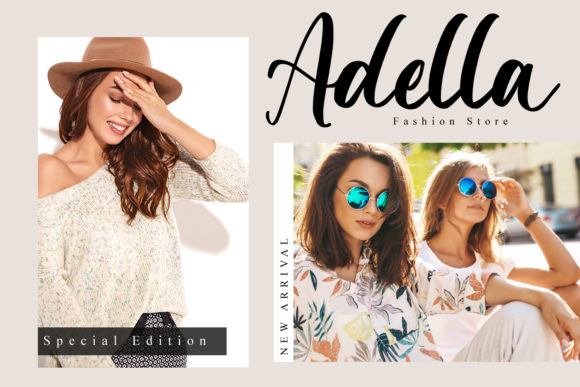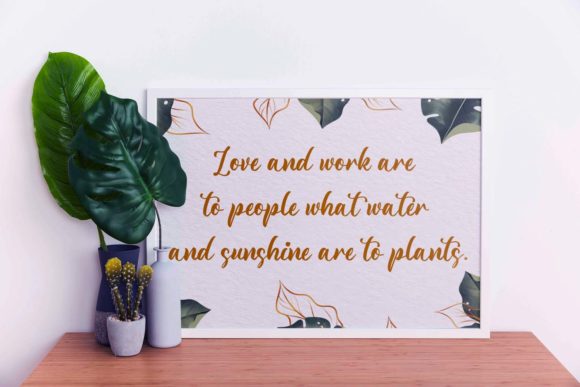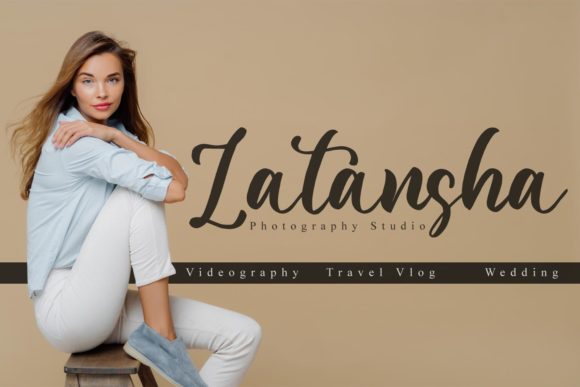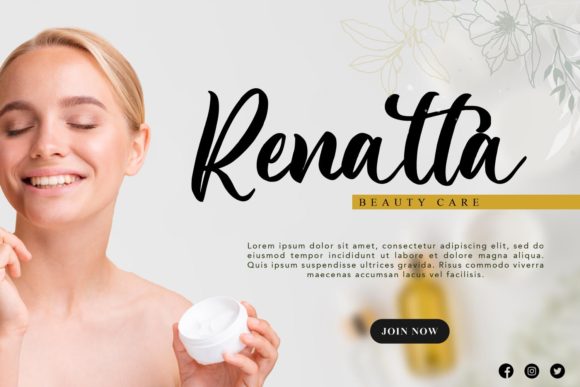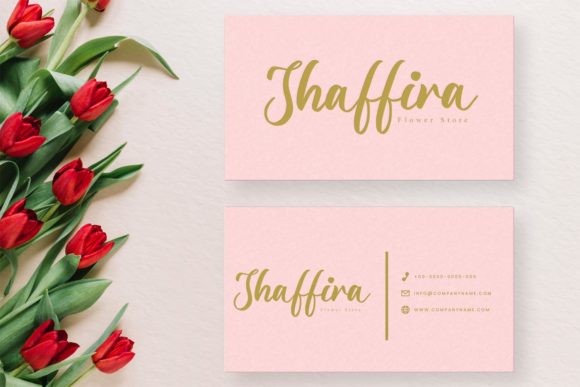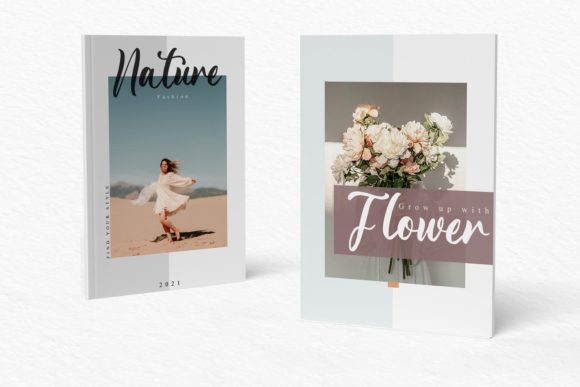
Introduction to Heylena Font
Have you ever stared at a blank canvas, trying to conjure up the perfect design for a creative project? The blank page can be intimidating, but with the right tools, it can also be a thrilling challenge. For designers, the quest for the perfect font can be a long and arduous one, but what if I told you that there’s a font that can elevate your designs to the next level? Enter the elegant and sophisticated Heylena Font.
This stunning brushed script font is a game-changer for any design project, from logos and branding to invitations and wedding designs. With its classy, modern look and PUA encoding, you’ll have access to all the glyphs and swashes you need to create high-quality designs. And the best part? It’s available for free download, making it a valuable resource for designers of all levels.
Key Features of Heylena Font
- High-quality, free download font ideal for creative projects
- Transparent background, making it perfect for graphic design and digital art
- Includes a range of unique and stylish characters, ideal for design resource
- Designed with high resolution in mind, suitable for print and digital use
- Perfect for designers and artists looking for a free, high-quality font for their creative project
Honest Review: Heylena Font
As a designer, I’m always on the lookout for high-quality design resources to elevate my creative projects. Recently, I came across the Heylena Font, and I’m excited to share my thoughts on this free download.
- ✨ Unique and elegant design aesthetic that adds a touch of sophistication to any project
- ✨ High-quality vector format ensures crisp and clear rendering on various devices
- ✨ Transparent background makes it easy to incorporate into any design without distractions
- ⚠️ Limited font styles and weights may not be suitable for complex design projects
- ⚠️ Not ideal for projects requiring extensive font customization
Overall, the Heylena Font is a solid addition to any designer’s toolkit. While it may not be the most versatile font, its unique design and high-quality rendering make it a great choice for creative projects where a touch of elegance is desired. With careful selection and usage, this free download can be a valuable design resource.
The Heylena Font is ideal for use in creative projects, such as branding, logos, and marketing materials. Its high-quality design and transparent background make it easy to use in layered designs and transparent backgrounds. It’s also a great resource for design students and professionals looking for a free and versatile font.